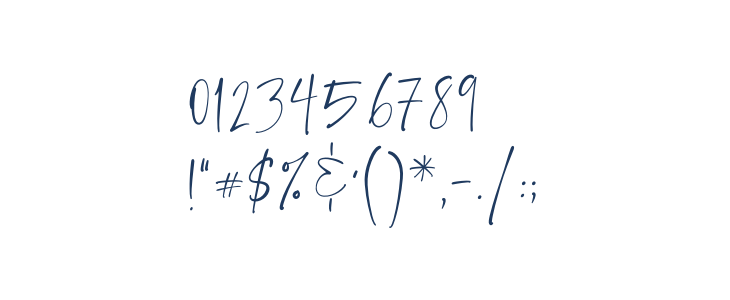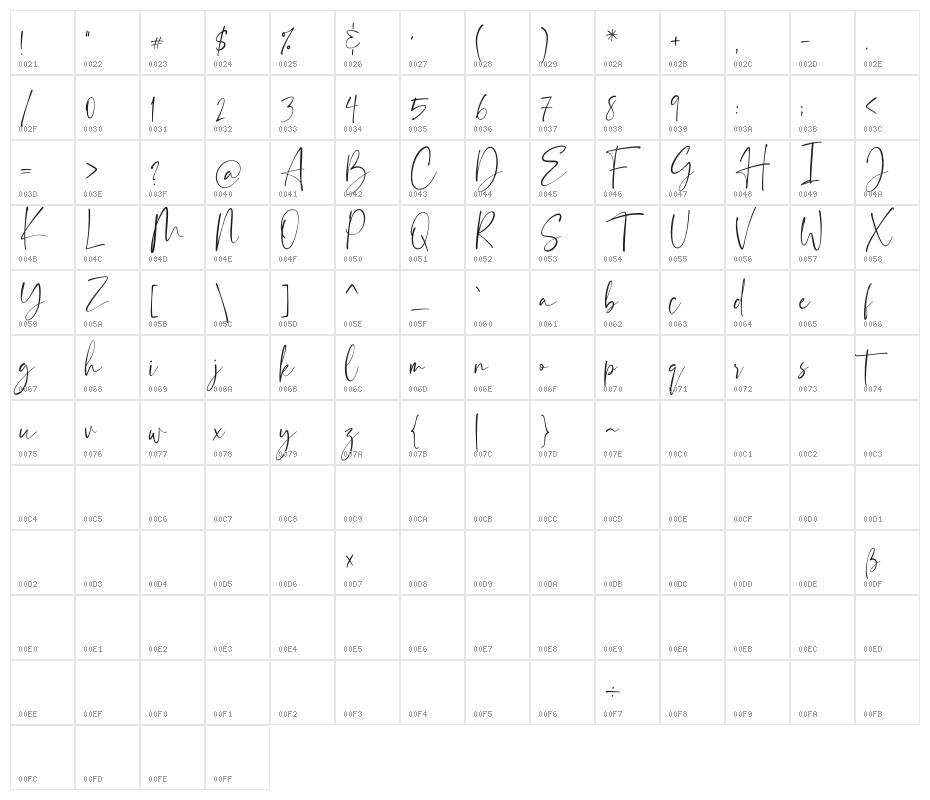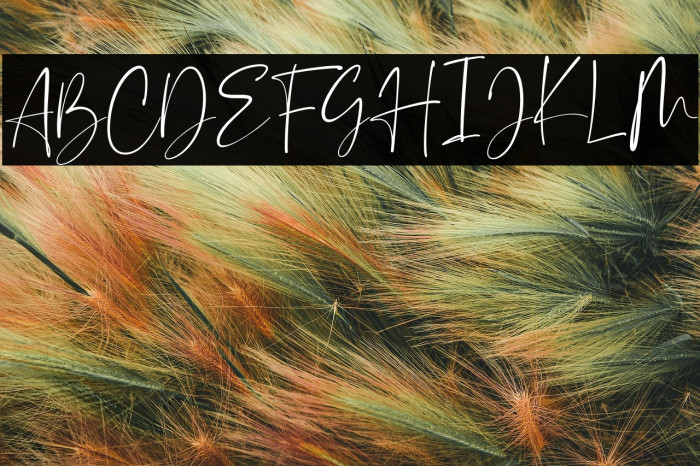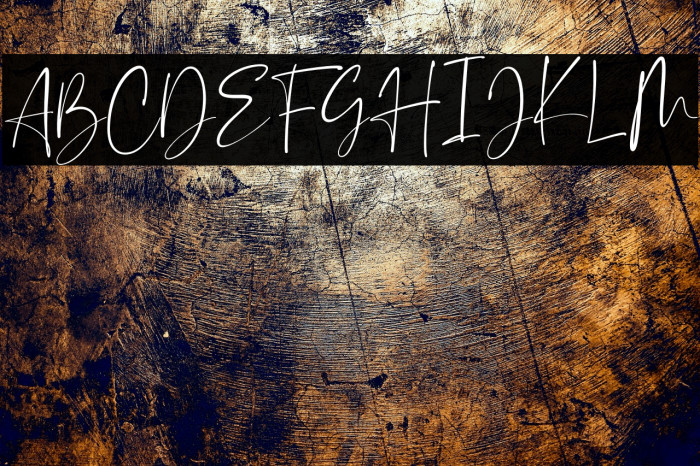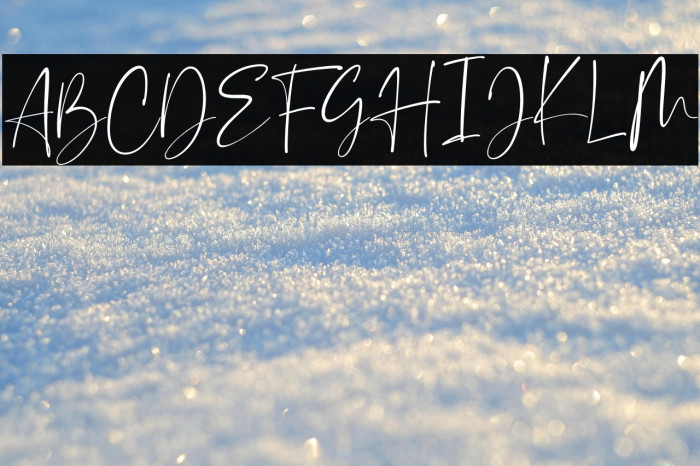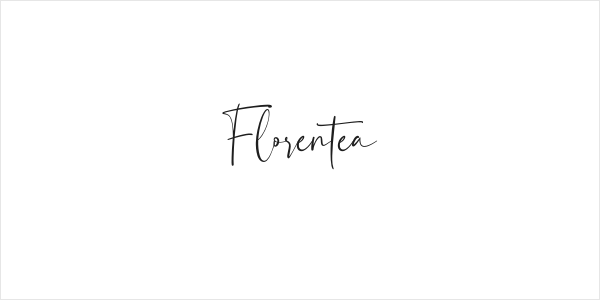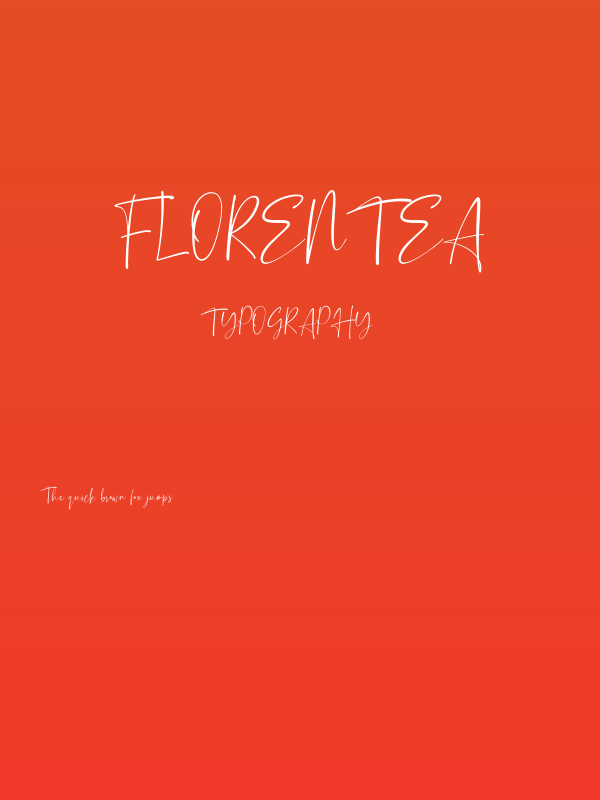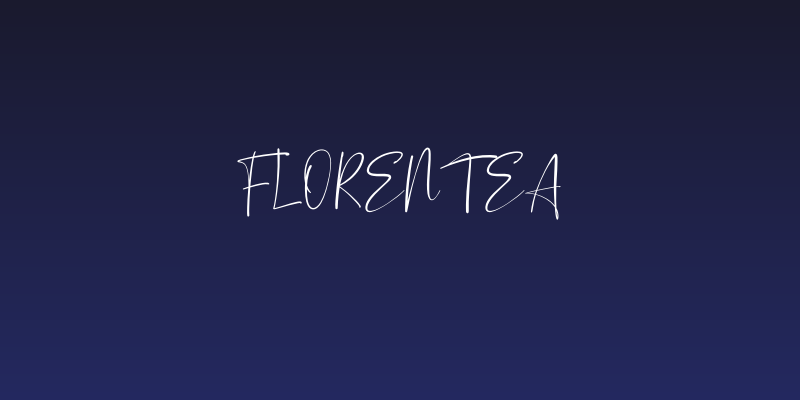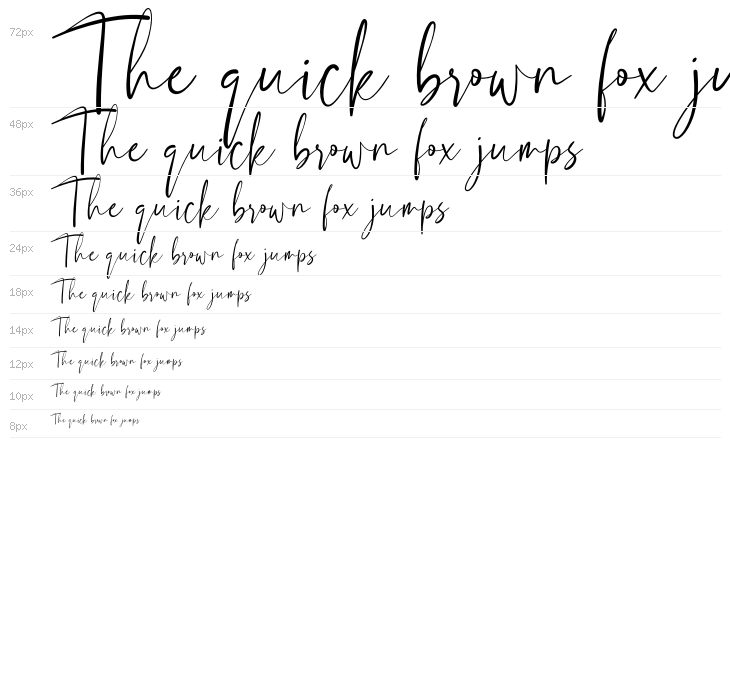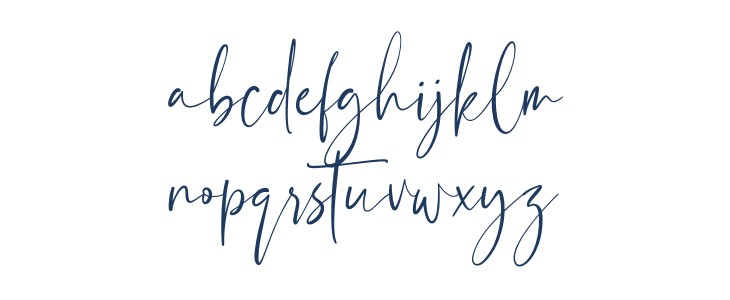
Florentea Font
Florentea Description
This font features a flowing, handwritten style with an elegant and artistic flair. The characters are connected with smooth, continuous strokes, giving it a natural and organic feel. The uppercase letters are slightly more structured, while the lowercase letters exhibit a more freeform and cursive appearance. The numbers and special characters maintain the same fluidity, ensuring a cohesive look across all glyphs. The overall design is airy and light, with a sense of movement and grace, making it ideal for projects that require a personal touch.
| Use Case | Logos, Headlines, Invitations |
| Proposed Projects | Ideal for wedding invitations, greeting cards, personal branding, and artistic projects. |